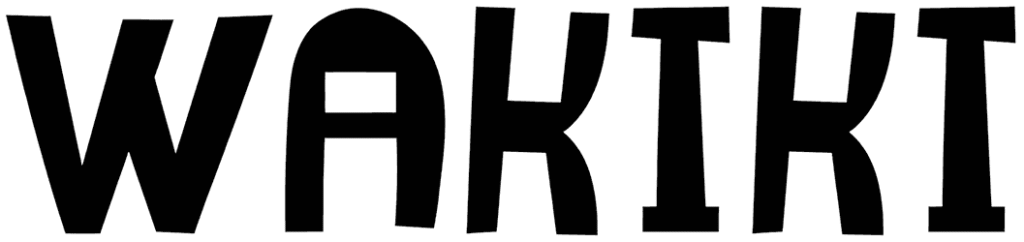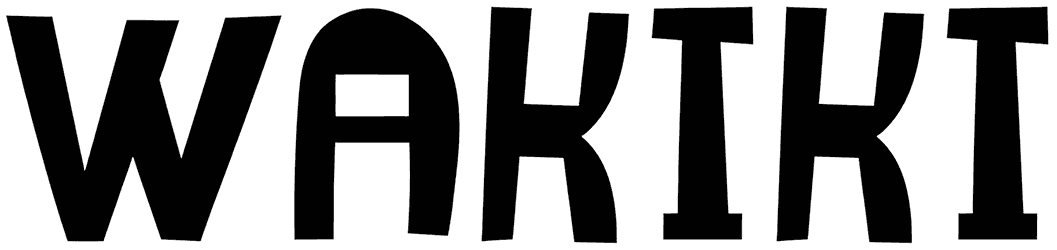
Wakiki Font
Would you love to promote your funny design with a playful and cute outward appearance? As a cartoon font with unique, bulky letters, Wakiki can make this happen and be matched with various happy-themed layouts. There is no offer for lowercase, but this fancy font can illustrate the words of your intended projects, namely posters, kids’ designs, covers, or the like, with a cheerful mood.